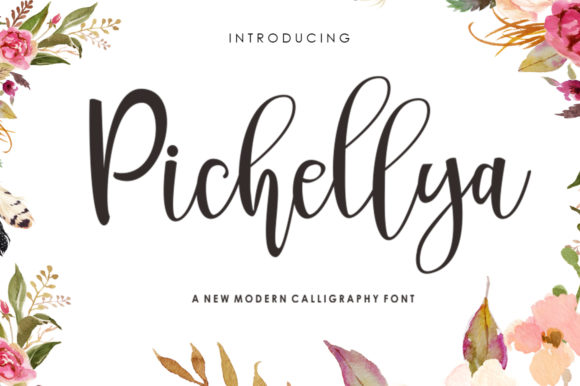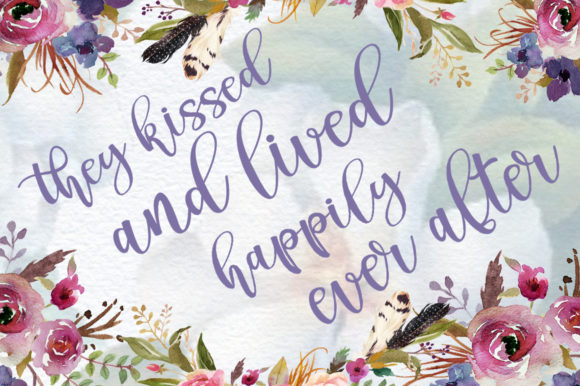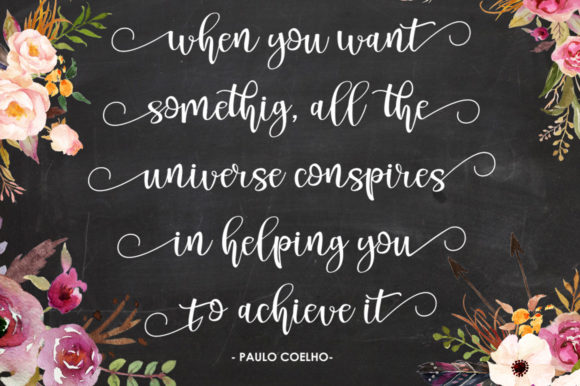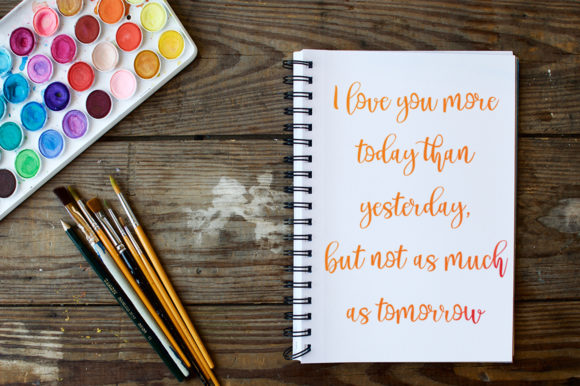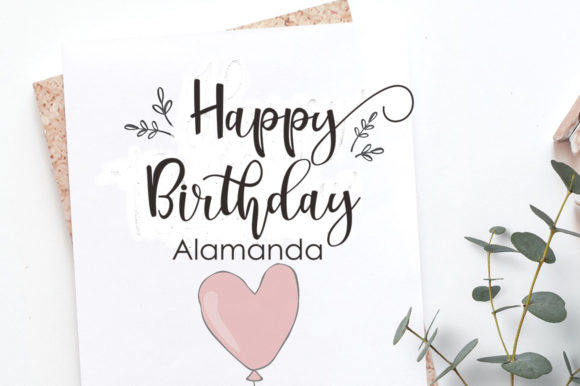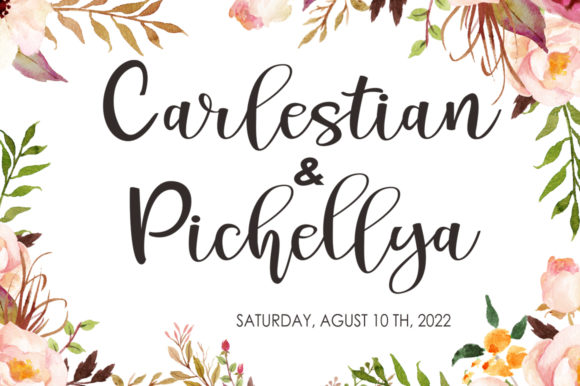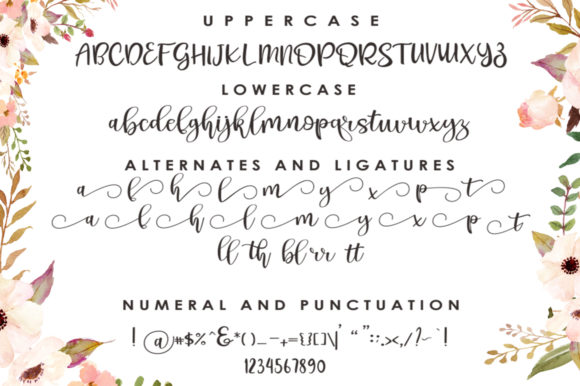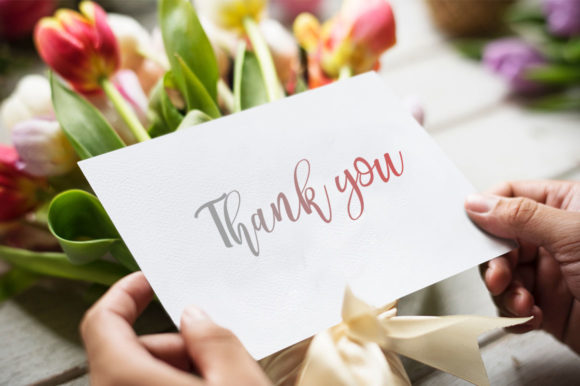
Pichellya Script Font
About Pichellya Script Font
The Pichellya is a modern script font. It was created with a brush and ink, and includes an irregular baseline.
It’s perfect for use in watercolor designs, blog headers, branding, t-shirts, weddings, social media, product designs, stationery, advertising, apparel, covers, books, business cards, greeting cards, branding, merchandise, invitations and handmade quotes, and more.